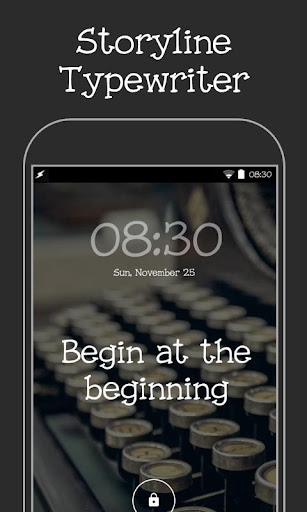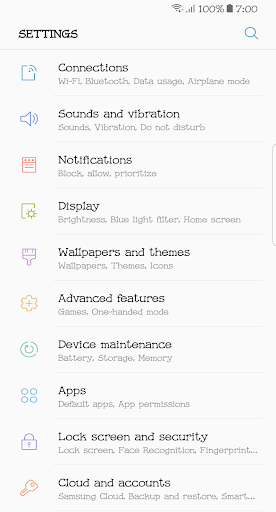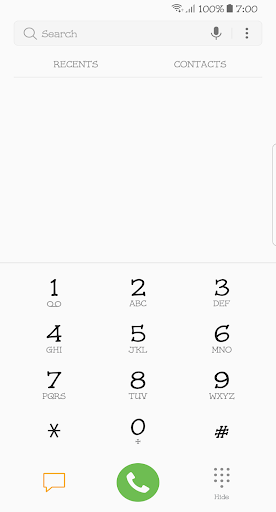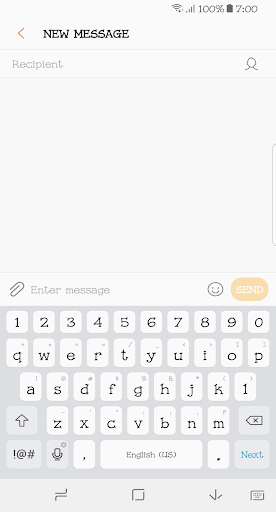
Looking to spread a little joy? It’s easy to express yourself and add charisma to your device’s display with Storyline Typewriter! A whimsical font choice, you can rely on Storyline Typewriter when your device is in need of some friendly charm.
Pan-European character set
supports Western, Central and Eastern European languages.